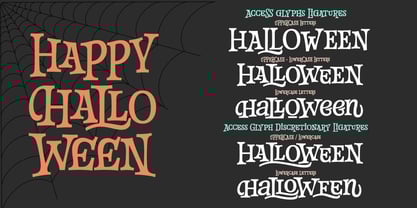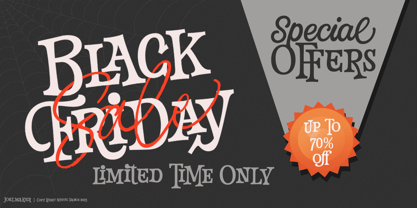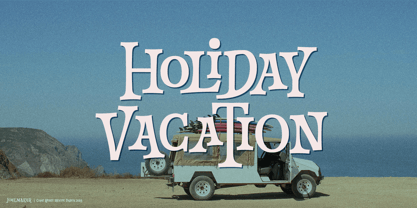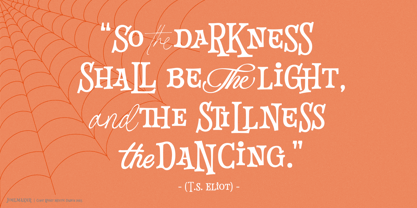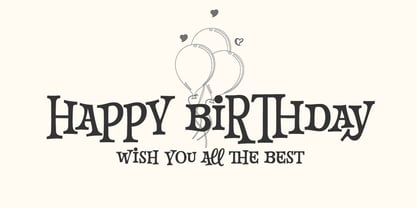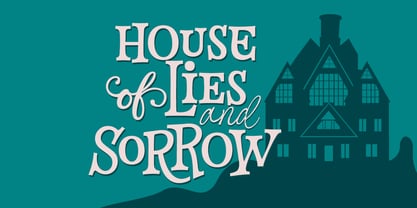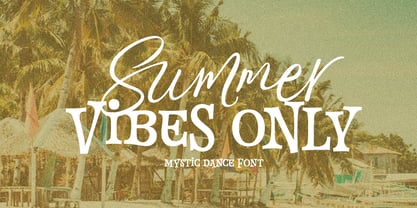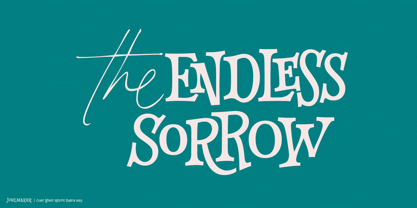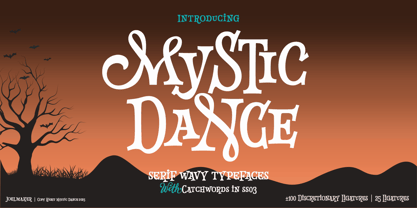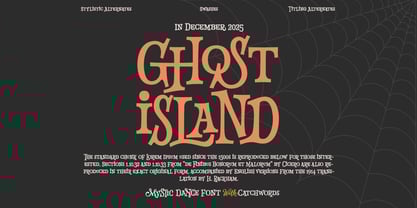
Mystic Dance
Mystic Dance is a wavy serif typeface that blends elegance with a touch of mystery. Its flowing, whimsical letterforms create a dynamic rhythm that feels both playful and enchanting — perfect for designs that need a magical, fantasy-inspired atmosphere and captures the spirit of motion and mystique in every curve. Featuring over 100 discretionary ligatures and 25 standard ligatures, Mystic Dance offers endless creative possibilities. It also includes beautifully crafted catchwords, enhancing your typography with decorative flair. Ideal for posters, book covers, Halloween themes, vintage logos, and artistic titles, this typeface adds a distinctive charm to any project.